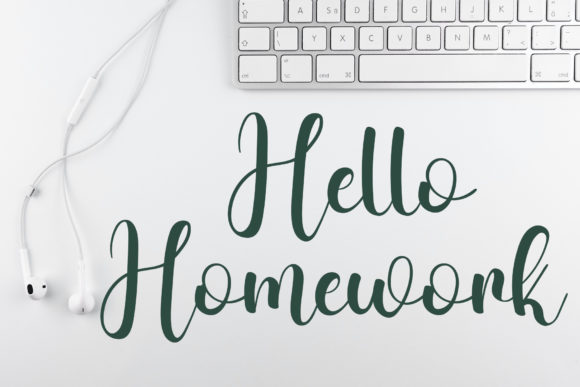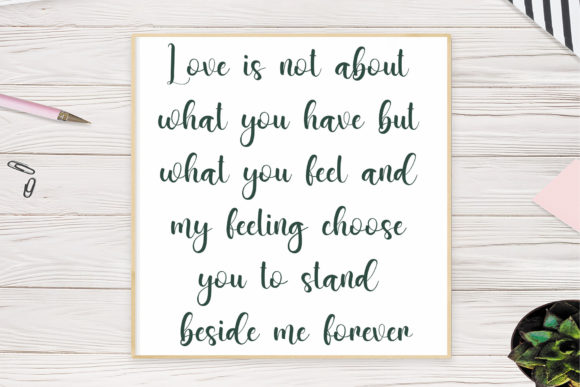
The Gleaming Font
db-ku.com - Script & Handwritten -- The Gleaming is a lovely and delicate script font that exudes elegance and class. This font was particularly crafted for those who need a beautiful and refreshing look to their designs.